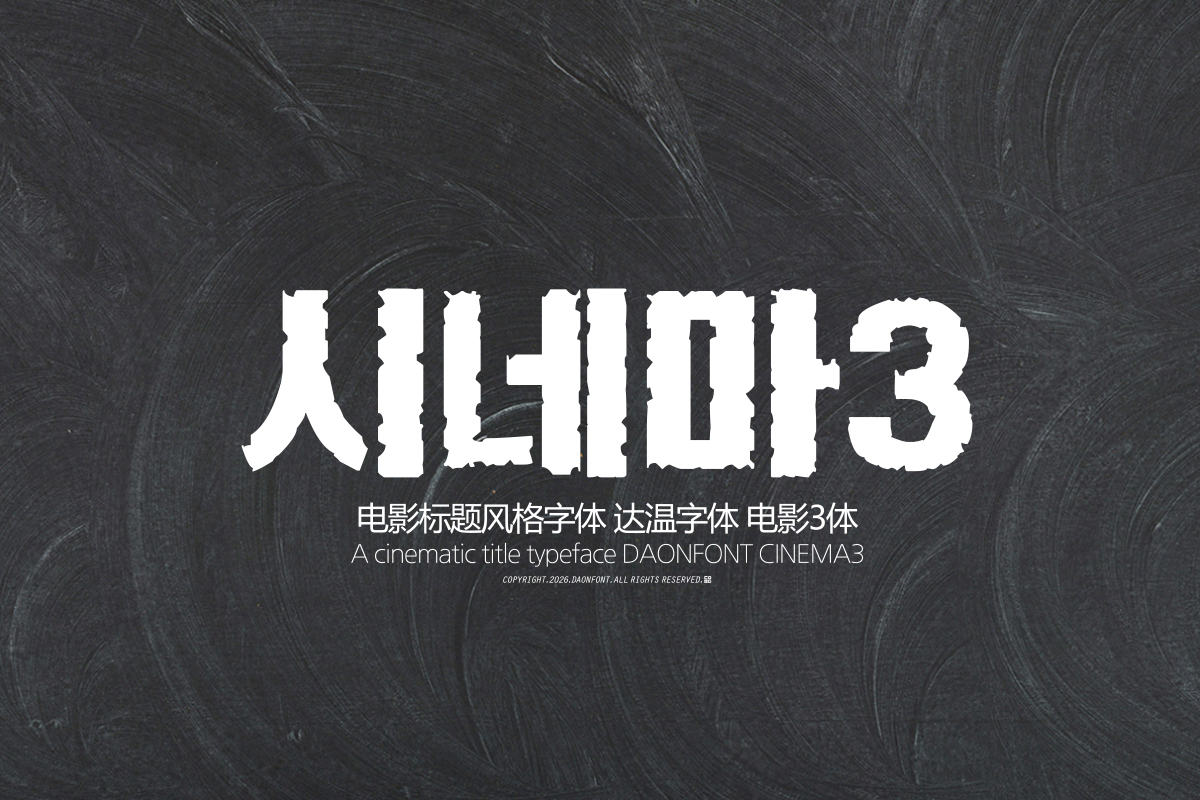
DAON CINEMA3
'CINEMA3' is a Korean typeface designed for displays to create intense title effects reminiscent of a scene on screen. It features a rough texture that captures the feel of an old stone wall. Compared to 'CINEMA1' and 'CINEMA2' , the outlines of the characters are relatively distinct, allowing it to convey a strong visual message and a weighty atmosphere based on the impressive typographical vibe found in movie posters or video openings.